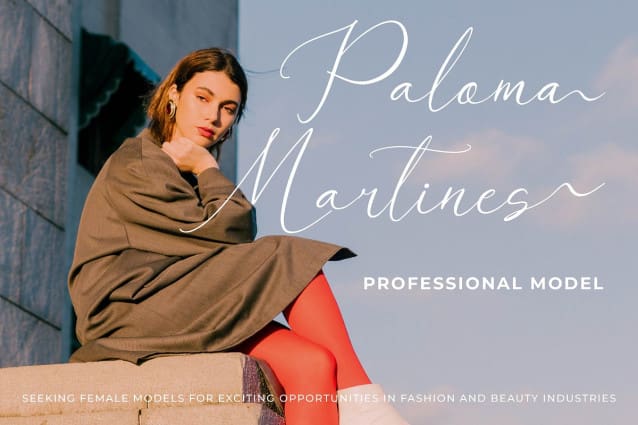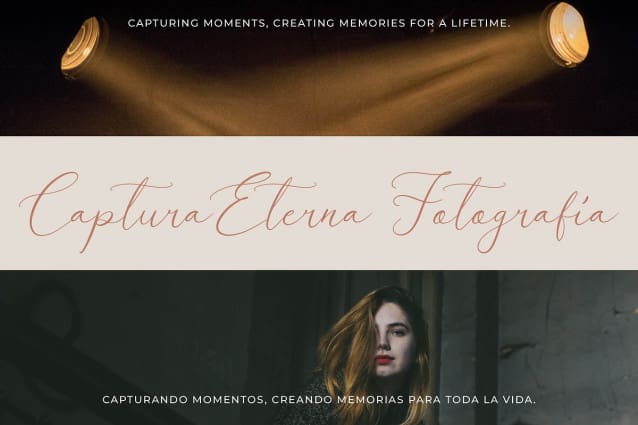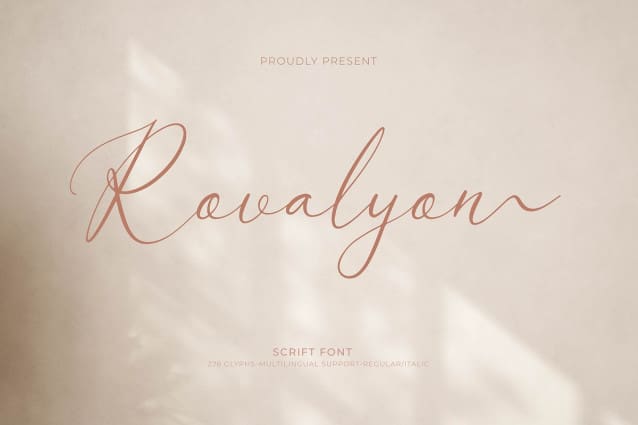
Rovalyon Script Font
Rovalyon Script Font | Handwriting Font, from Gracetypestudio, suitable for any projects such as: logos, branding projects, homeware designs, product packaging, mugs, quotes, posters, shopping bags, t-shirts, book covers, name card, invitation cards, greeting cards, label, photography, watermark, special events, and all your other lovely projects that need a Handwriting Font taste.